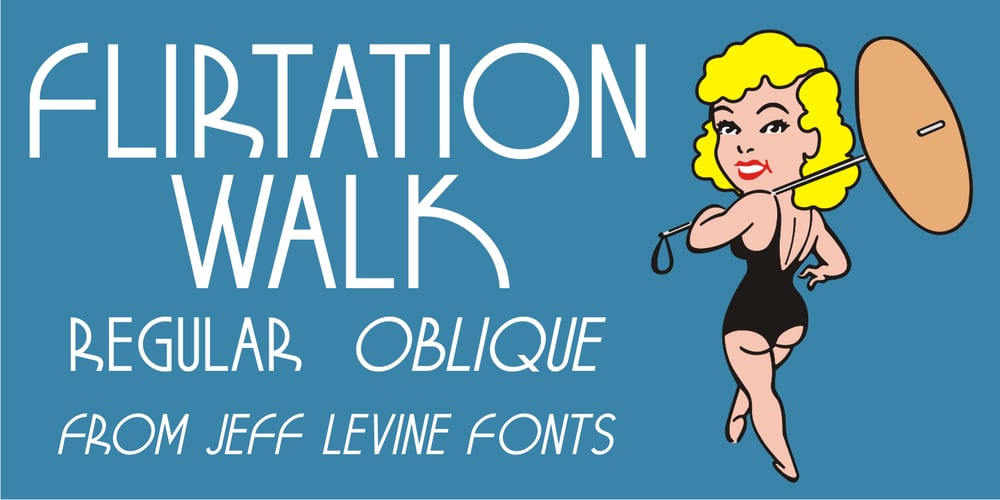
Flirtation Walk JNL Font Family was designed by Jeff Levine and published by Jeff Levine. Flirtation Walk JNL contains 2 styles and family package options. Flirtation Walk JNL was inspired by the lettering on the covers of sheet music for songs taken from the 1934 Dick Powell-Ruby Keeler movie “Flirtation Walk”. The typeface features some stylized characters as well as the more familiar Art Deco character designs, and is available in both regular and oblique versions.